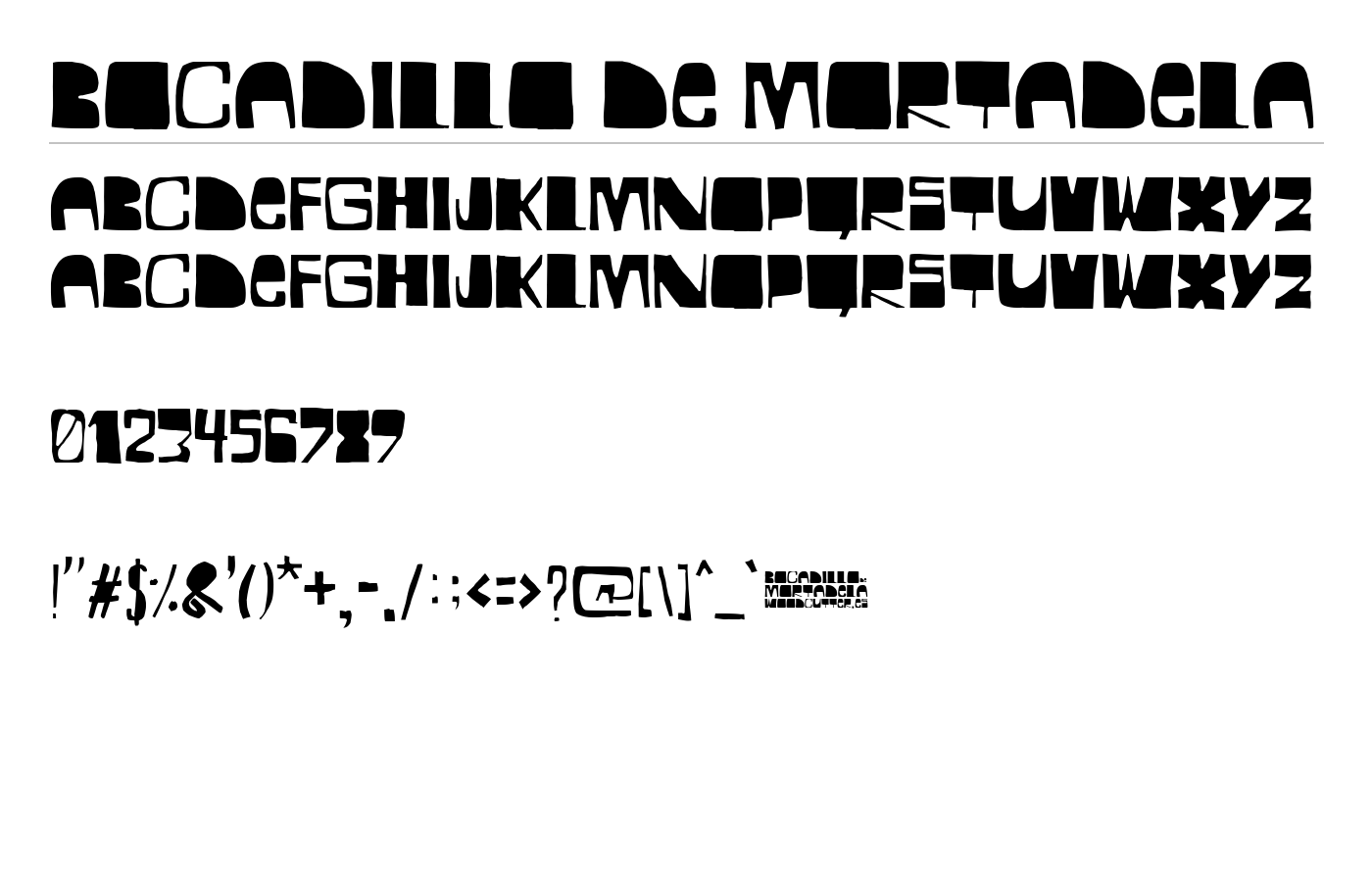
Bocadillo de Mortadela is a bold, quirky display font with a playful and uneven blocky style that gives it a hand-crafted, artistic vibe. Its irregular, chunky letterforms with high contrast in stroke width create a unique, eye-catching look perfect for fun branding, posters, or creative headlines where personality and impact are key. This font works best when you want to add a distinctive, lively touch that feels informal and expressive.
BOCADILLO DE MORTADELA Font
About BOCADILLO DE MORTADELA Font